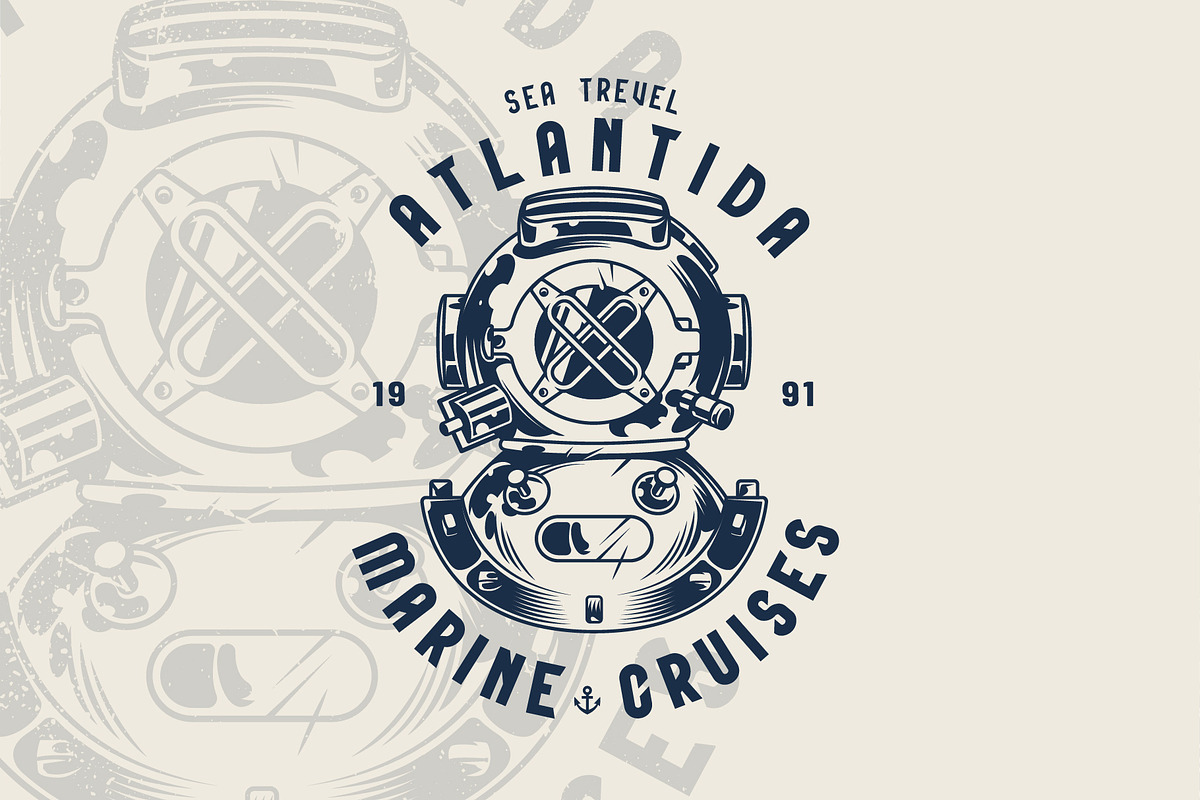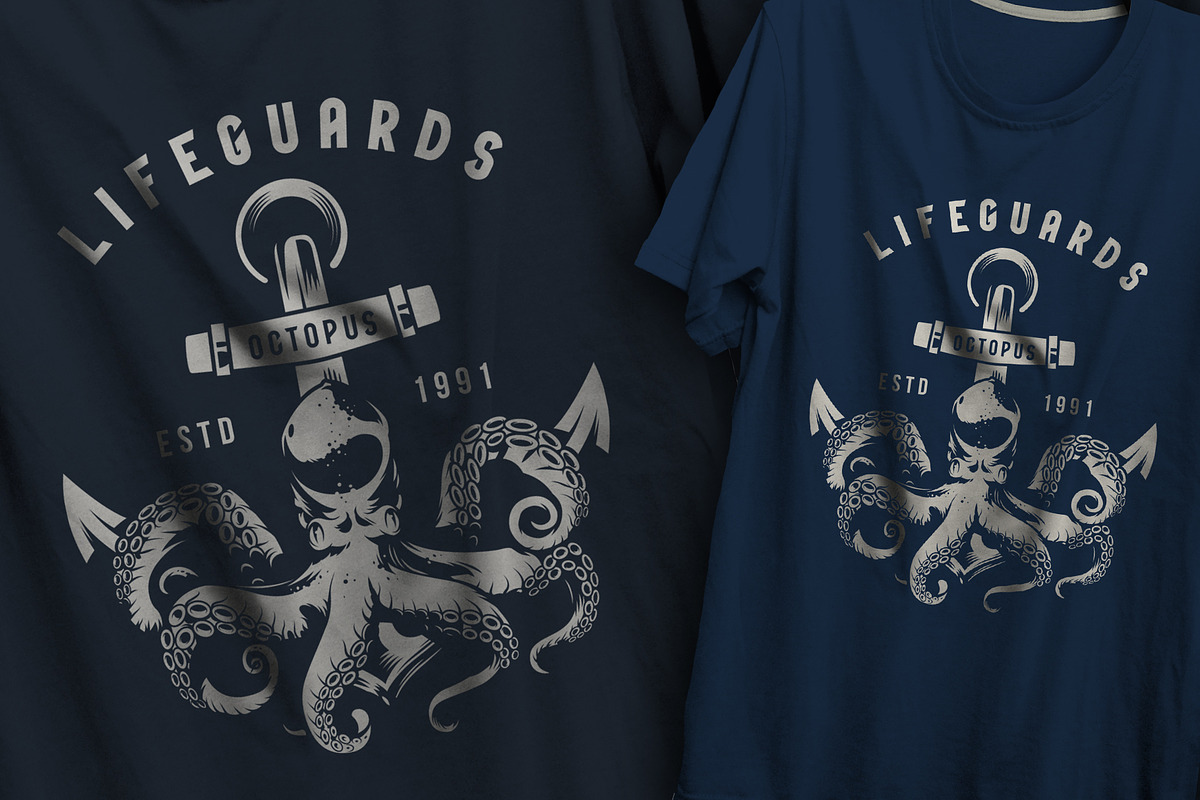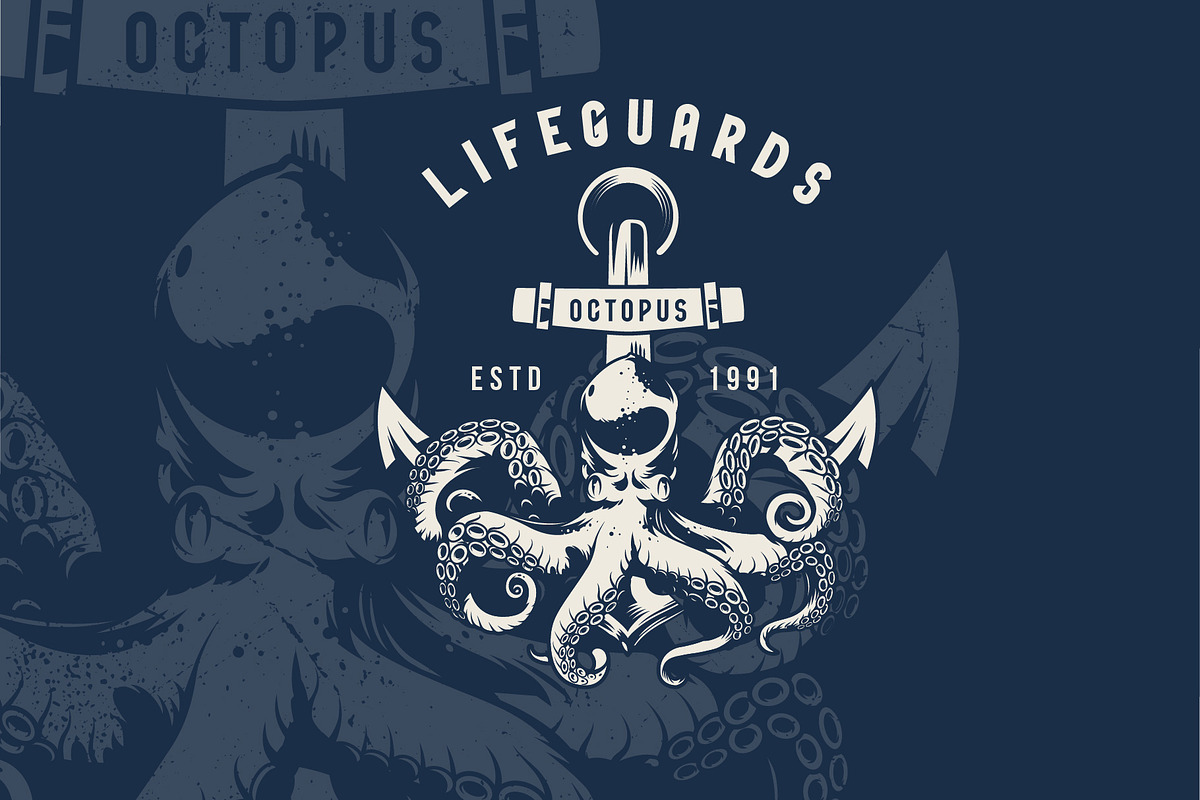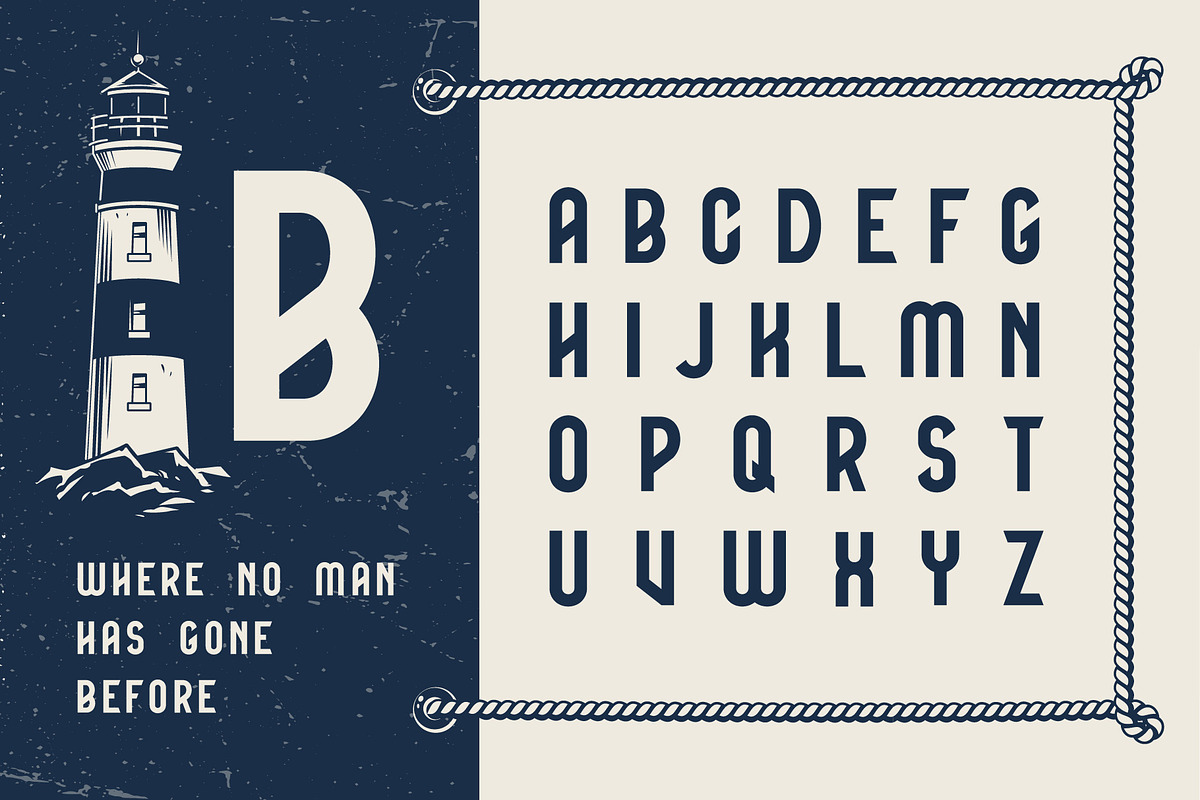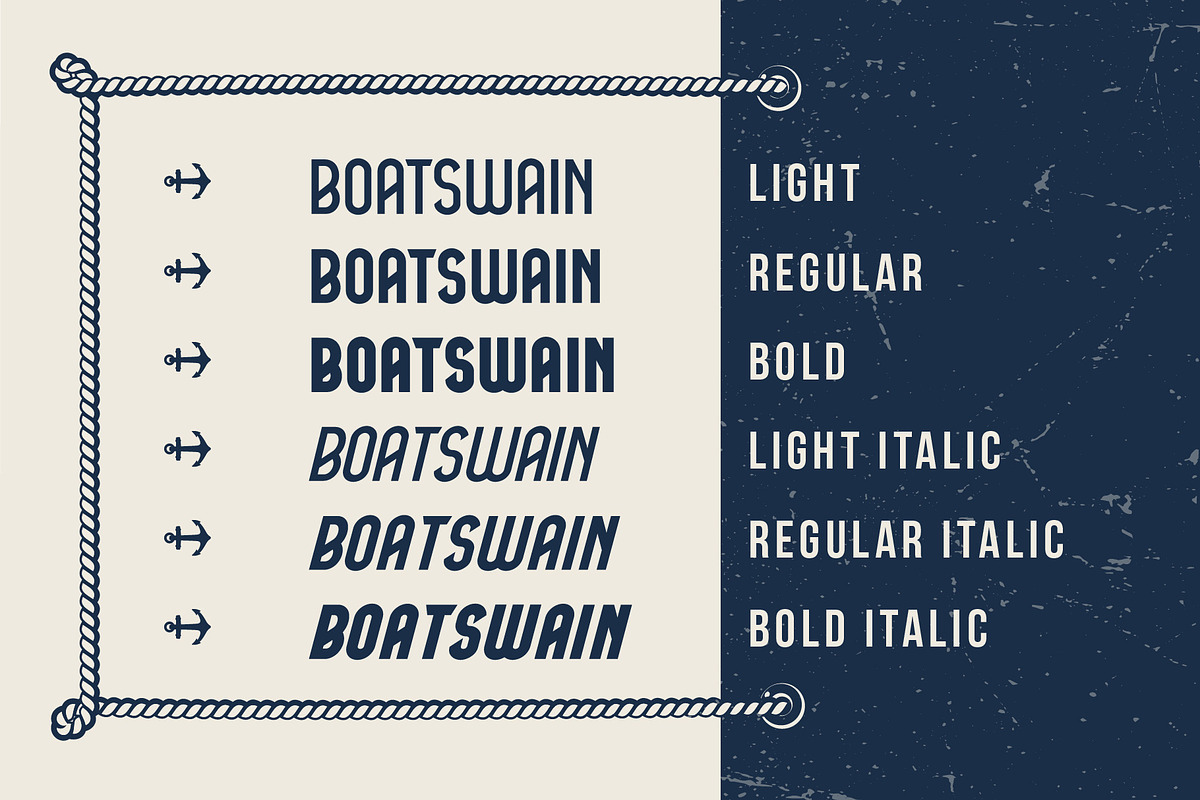
Boatswain Fonts Family + Extras
The Boatswain is a sans serif font family. Sharp-pointed font resembling fishing hooks is for real sailors and everyone who likes the smell of the sea breeze and has the spirit of adventure! The font will be perfect for any nautical, sea and marine themed projects The typeface can be used for patches, labels, badges, emblems, signs, stickers, headlines, blog headers, branding, packaging, apparel design and much more. This great font definitely will inspire you towards new sea adventures!
Boatswain font family features
7 monochrome style nautical vector elements: Bearded and mustached seaman in sailor hat smoking pipe, ship wheel, diver helmet, navigational compass, anchor, octopus, lighthouse